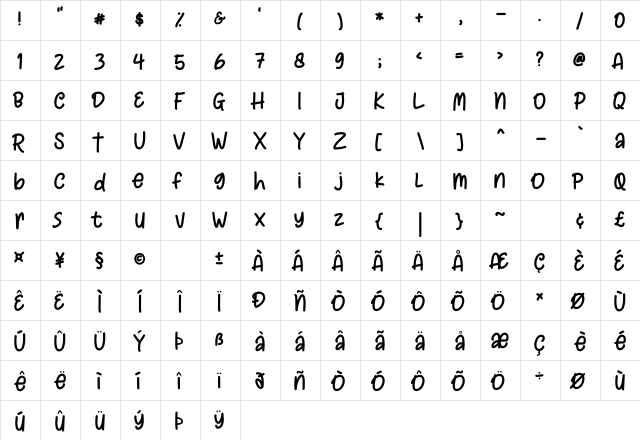
Club Style Regular
| Designer | Sigit Dwipa Raharjo |
Design Context for Club Style Typeface
Club Style is a composed and adaptable typeface that performs quietly and consistently across a wide range of design contexts.